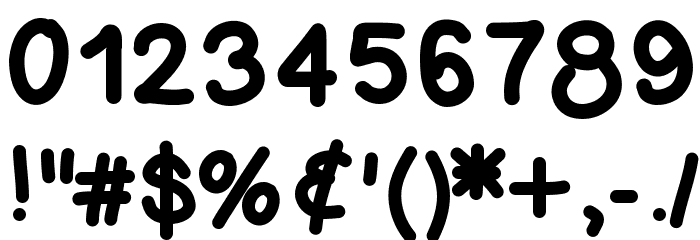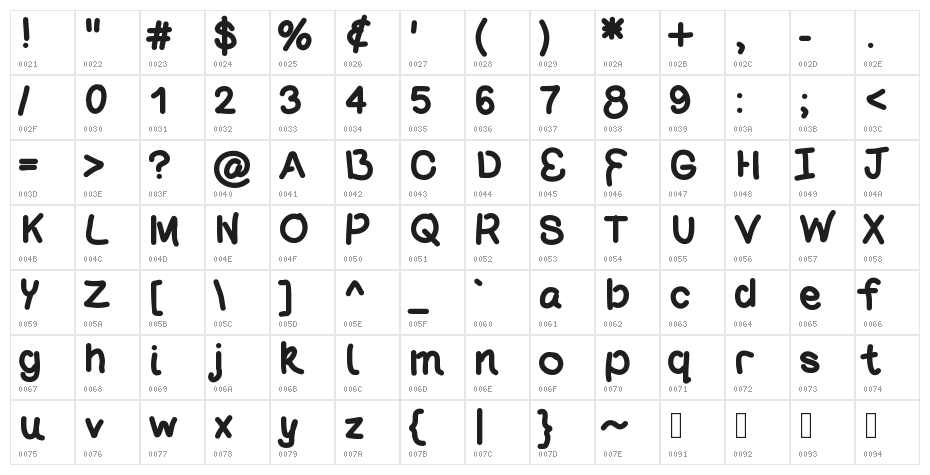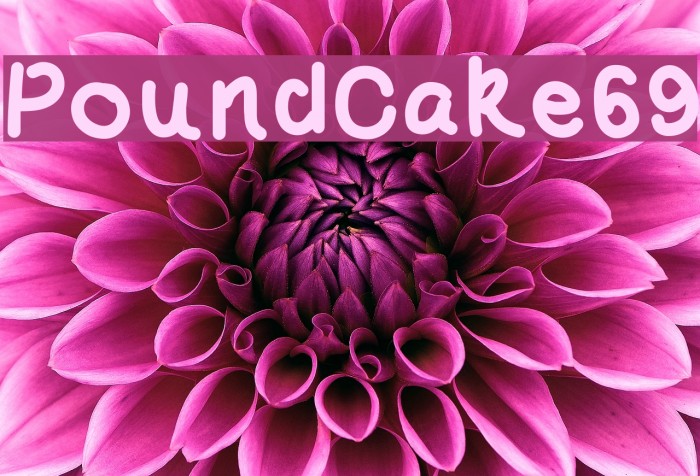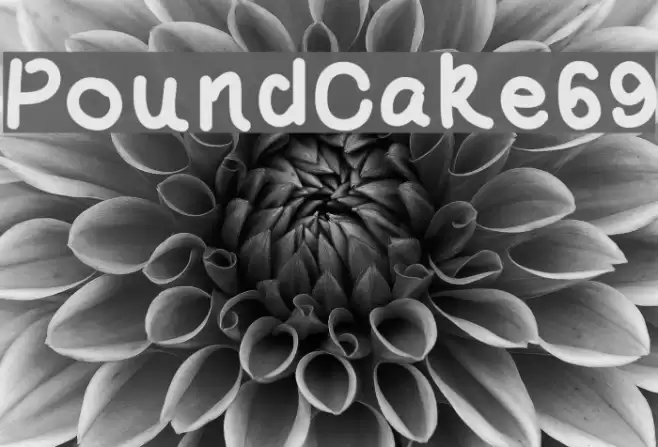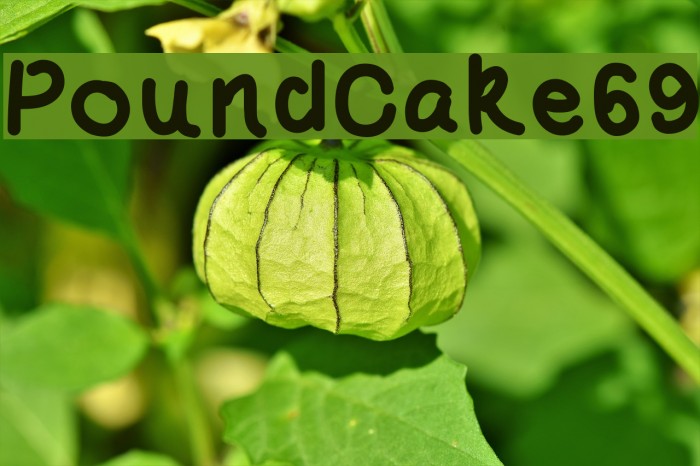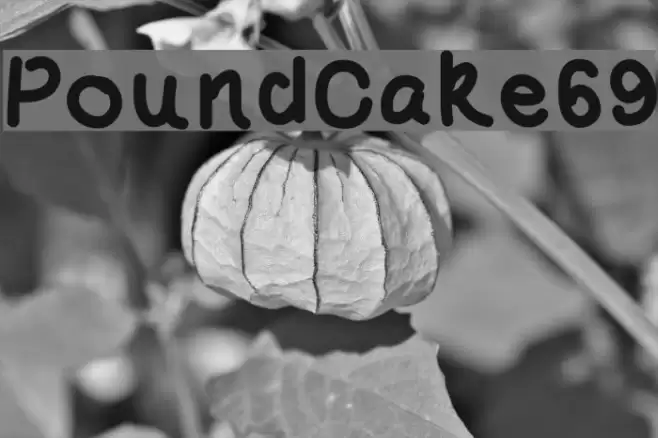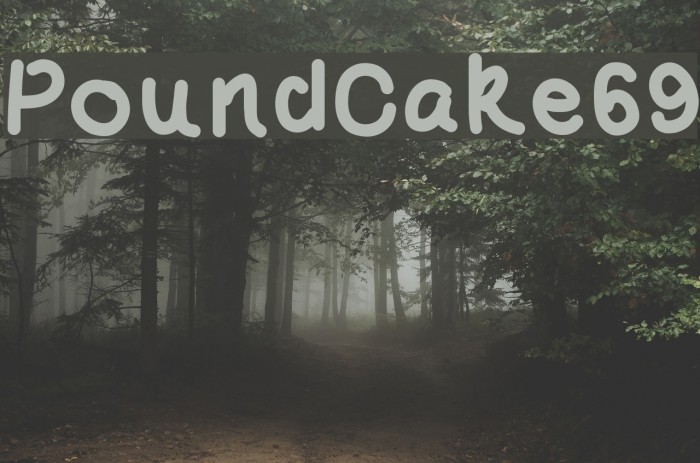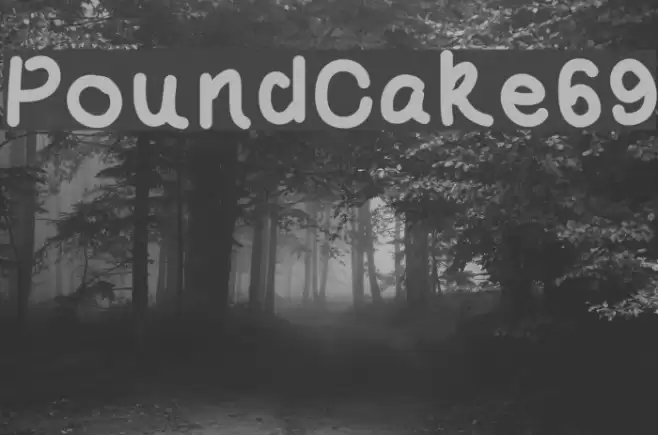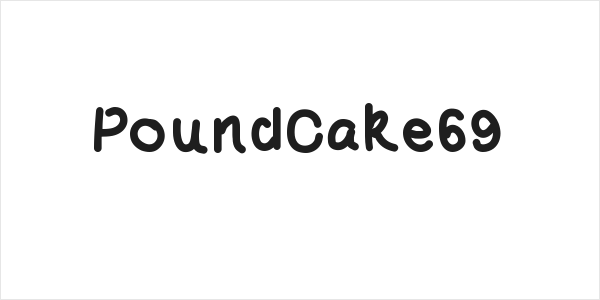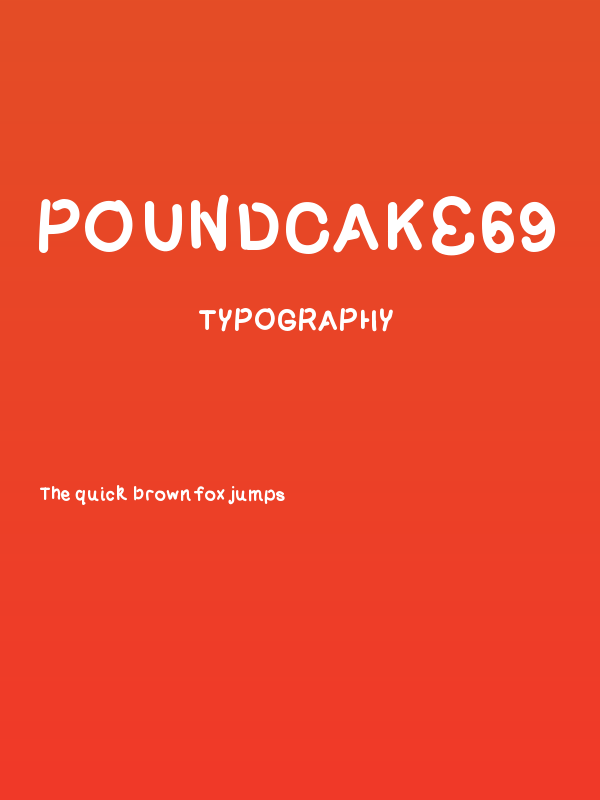
PoundCake69 Font
PoundCake69 Description
This playful and whimsical font features rounded, bubbly characters with a hand-drawn aesthetic. The letters are bold and slightly irregular, giving them a casual and friendly appearance. The font maintains a consistent stroke width throughout, contributing to its approachable and informal style. It includes a full set of uppercase and lowercase letters, numbers, and a variety of special characters, making it versatile for different uses. The overall look is reminiscent of doodles or children's handwriting, adding a touch of fun and creativity to any project.
| Proposed Projects | Ideal for children's books, playful branding, greeting cards, and casual invitations. |